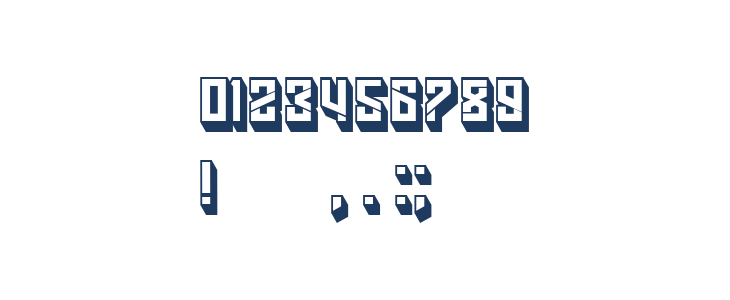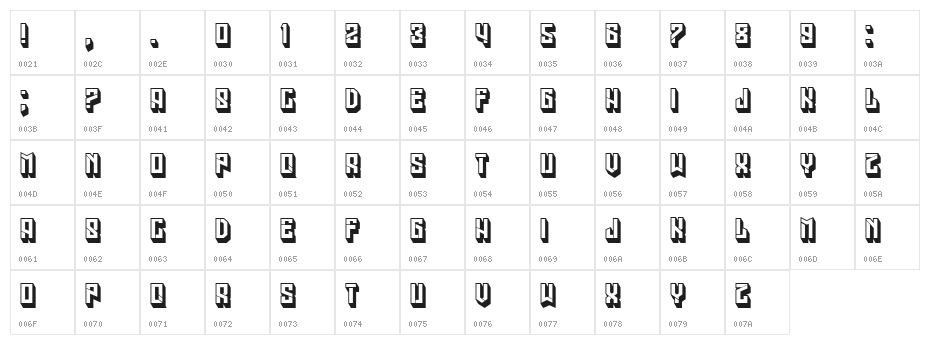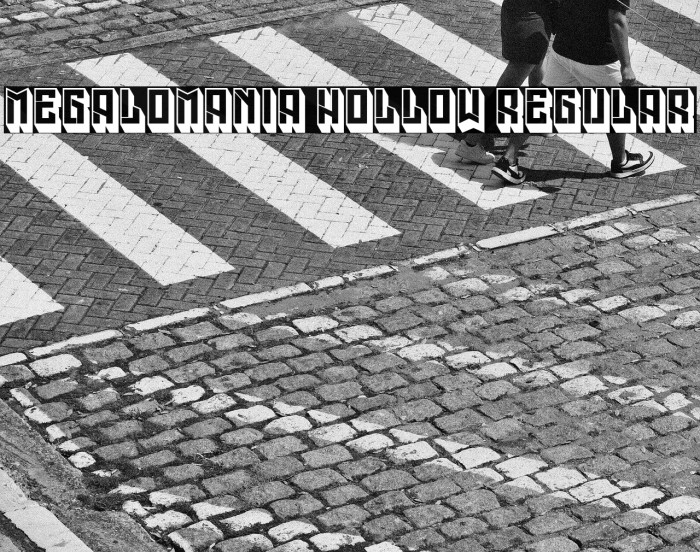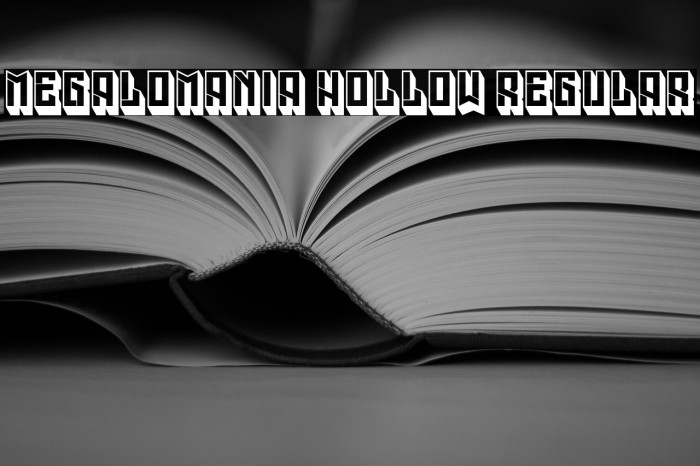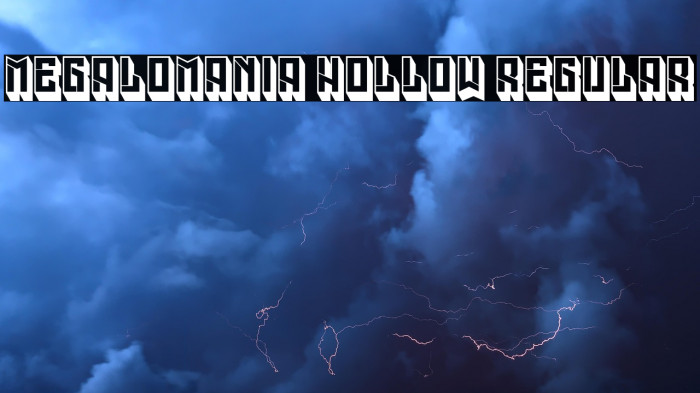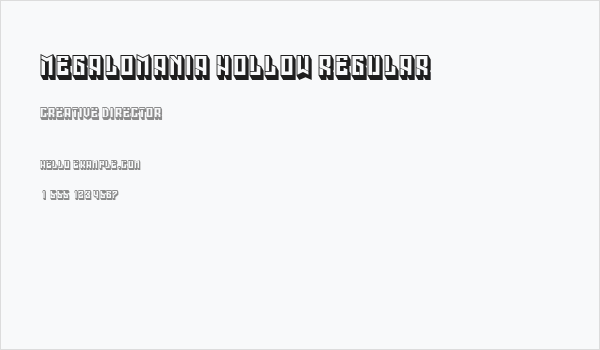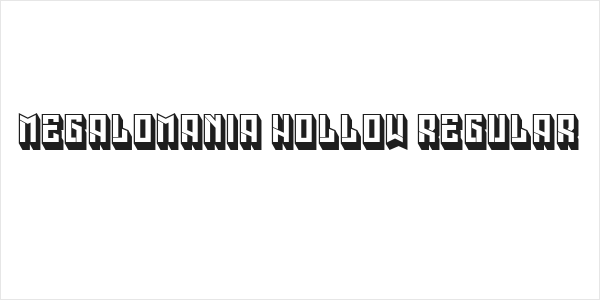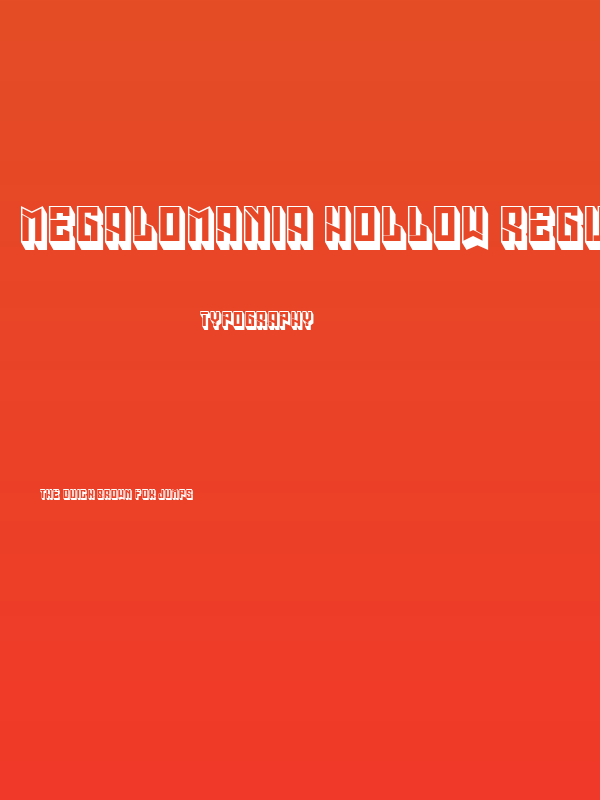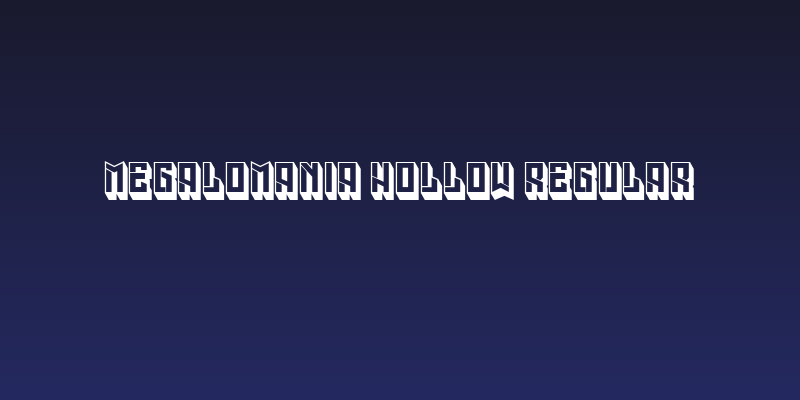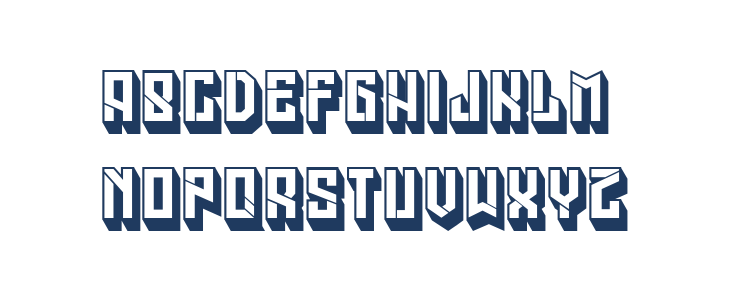
Megalomania Hollow Regular Font
Megalomania Hollow Regular Description
This font features a bold, three-dimensional design with a hollow interior, creating a striking visual effect. The characters are blocky and geometric, with sharp angles and a strong presence. The shadowing effect adds depth, making the letters appear as if they are popping off the page. This style is reminiscent of retro or vintage designs, often used to grab attention and make a statement. The uppercase and lowercase letters maintain a consistent style, and the numbers and special characters are equally bold and impactful.
| Proposed Projects | Ideal for posters, headlines, logos, and any design needing a bold, eye-catching typeface. |